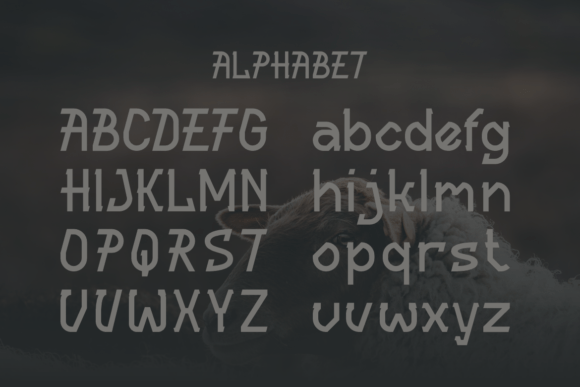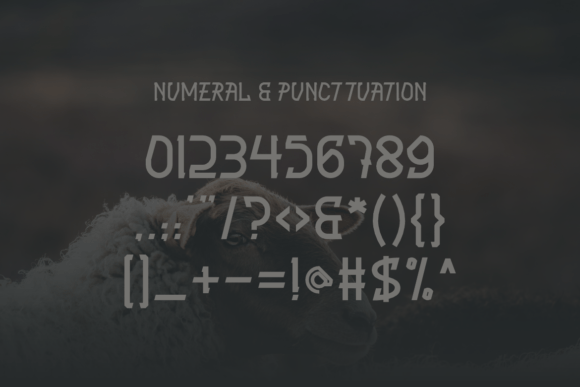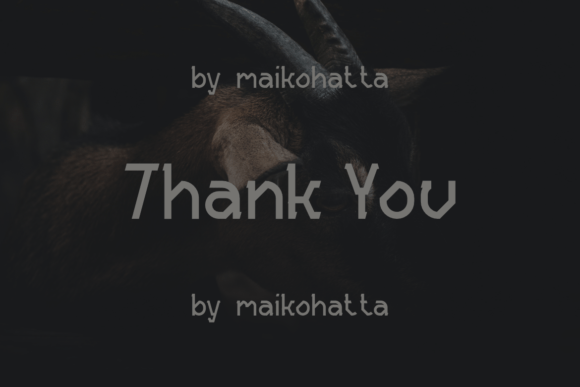
Introducing Bandoth Font: Elevate Your Designs with a Cool and Modern Display Font
In the world of design, fonts play a crucial role in conveying the message and aesthetic of a project. Whether you’re working on a branding campaign, a website, or a crafting project, the right font can make all the difference. If you’re on the lookout for a font that can add a touch of modernity and coolness to your creations, look no further than Bandoth Font. In this article, we’ll dive into the features and benefits of Bandoth, and explore how it can become a valuable asset in your font library.
What is Bandoth Font?
Bandoth is a stylish and contemporary display font designed to make a statement. Its unique and clean lines give it a versatile appeal that can be applied to a wide range of design topics. From bold headlines to catchy slogans, Bandoth Font is crafted to enhance any creation with its modern charm.
Key Features of Bandoth Font
- Modern and Cool Design: Bandoth boasts a sleek and modern design that instantly elevates the visual appeal of any project.
- Versatility: This font is incredibly versatile, making it suitable for various design applications, including branding, advertising, web design, and crafting.
- Easy to Read: Despite its stylish appearance, Bandoth maintains excellent readability, ensuring that your message is conveyed clearly and effectively.
- High-Quality: Bandoth is a high-quality font that offers crisp and clean lines, perfect for both digital and print applications.
Benefits of Using Bandoth Font
Adding Bandoth to your font library comes with numerous benefits. Here are a few reasons why designers and crafters love this font:
- Enhances Visual Appeal: Bandoth’s modern design can instantly enhance the visual appeal of your projects, making them stand out from the crowd.
- Time-Saving: With Bandoth, you can achieve professional-looking results without spending hours on custom typography.
- Consistency: Using a consistent font across your designs helps in building a strong brand identity, and Bandoth can be a great addition to your brand’s typography.
- Wide Application: Whether you’re working on a logo, a website, a brochure, or a crafting project, Bandoth can be adapted to fit various design needs.
How to Use Bandoth Font Effectively
To make the most out of Bandoth Font, consider the following tips:
- Pair it with Complementary Fonts: Bandoth works well with both serif and sans-serif fonts. Experiment with different pairings to find the perfect combination for your project.
- Use it for Headlines and Titles: Bandoth’s display nature makes it perfect for headlines, titles, and short texts. Use it to draw attention and create visual hierarchy.
- Adjust Size and Color: Don’t be afraid to experiment with different sizes and colors to make Bandoth stand out or blend in, depending on your design needs.
Bandoth Font is a cool and modern display font that can significantly enhance your designs. Its versatility, readability, and high-quality design make it an excellent addition to any font library. Whether you’re a designer working on a branding campaign or a crafter looking for the perfect font for your project, Bandoth is sure to meet your needs. With its wide range of applications and ease of use, Bandoth Font is poised to become your go-to font for all your design endeavors.